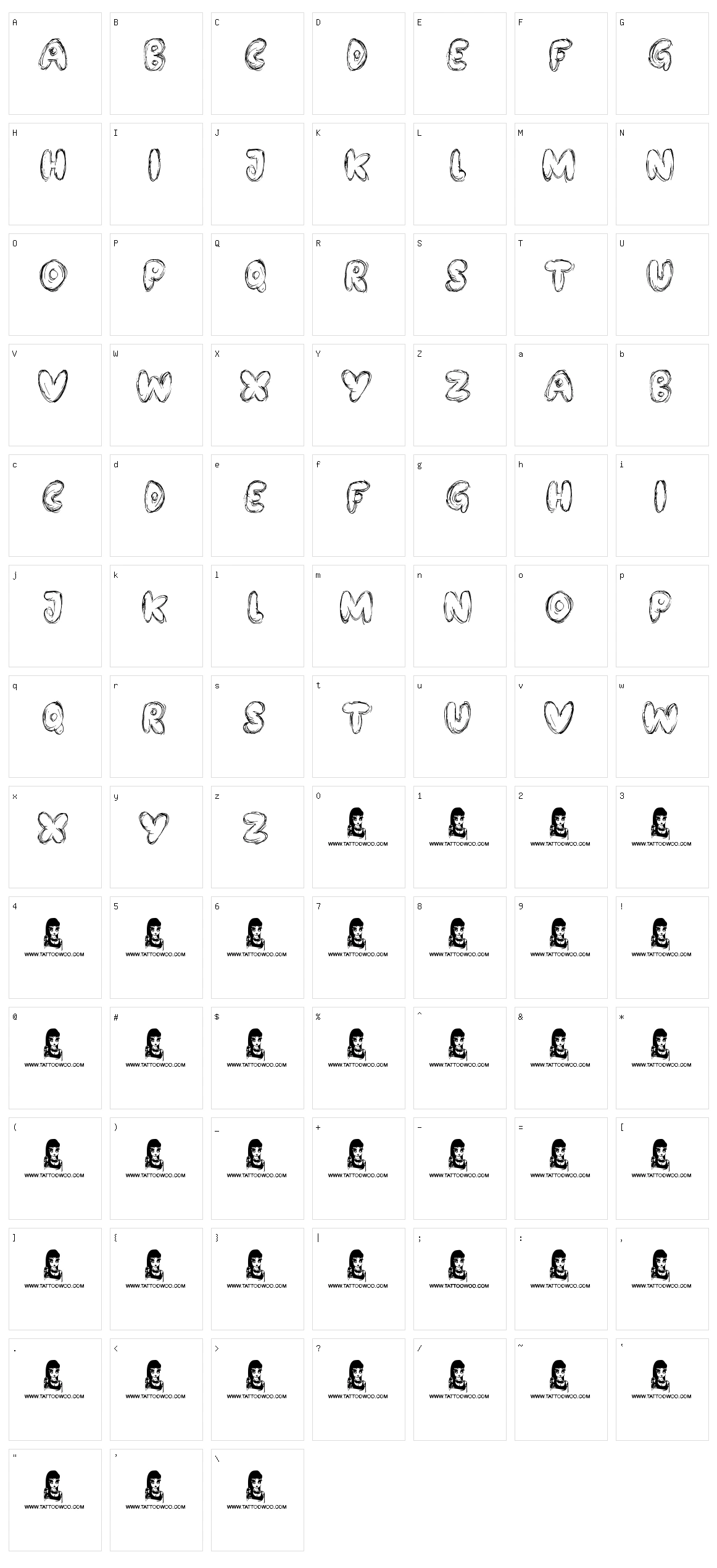
The free font Bubble Bash is carefully designed by JSH creates, showcasing a thoughtful balance of creativity and usability and falls under the Cartoon font style. When you download the ZIP file, it contains only 80.37 KB of font files, making it lightweight and quick to download. Please review the license details below to understand permitted usage and distribution rights. If license information is not available, we recommend using this font for personal projects only or contacting the author directly for commercial usage permissions.